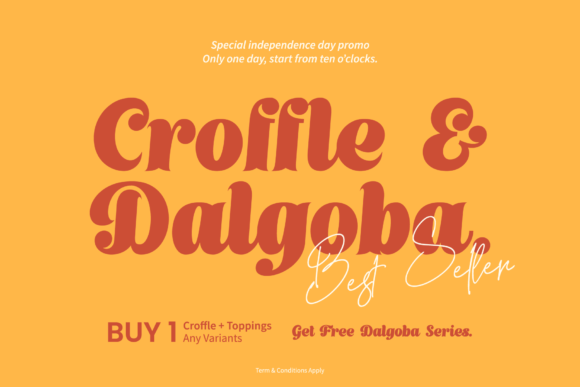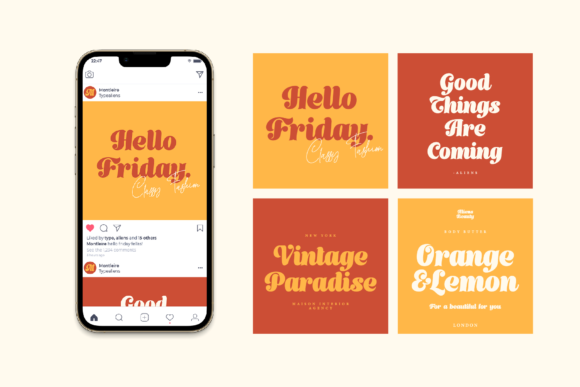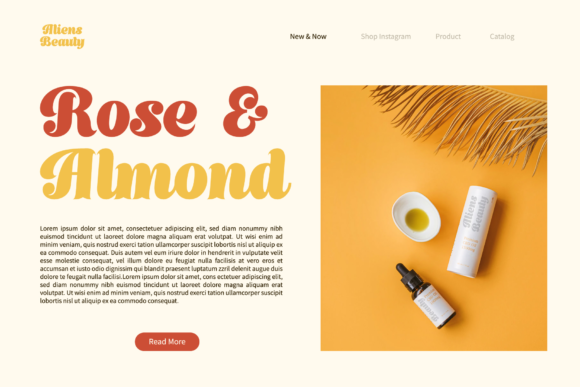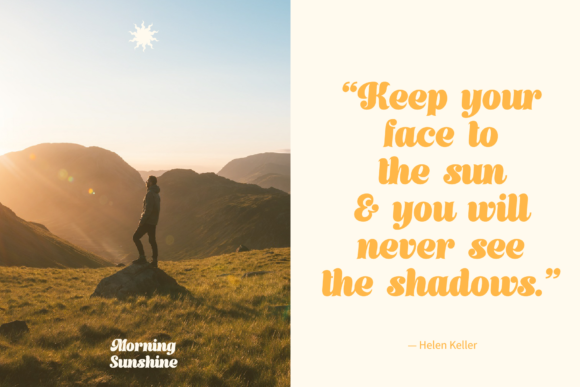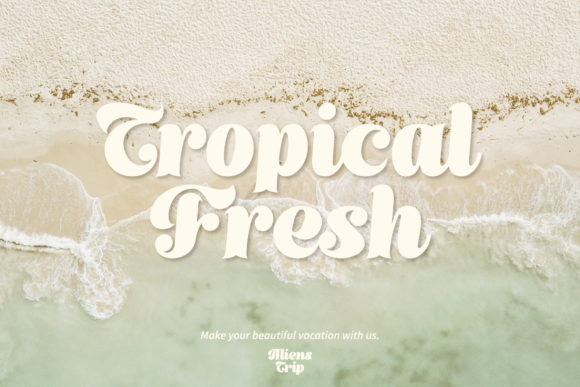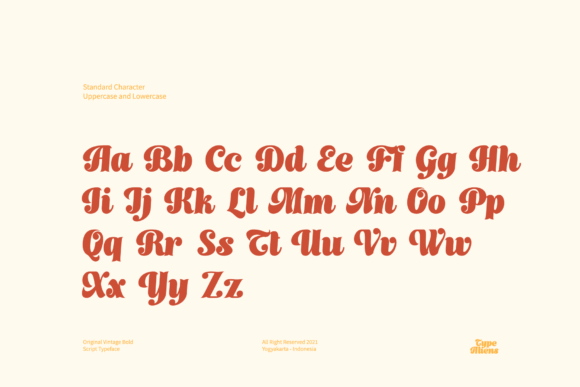
Introduction to Montleire Font
Have you ever found yourself scrolling through your old photos, reminiscing about the past, and suddenly you’re hit with a wave of inspiration? That’s exactly what happened to me the other day when I stumbled upon an old family album from the 80s. The bold, handwritten font used in the captions immediately caught my attention and sparked an idea for a design project. I knew I had to find a font that could evoke the same feeling of nostalgia and energy, and that’s when I discovered the Montleire Font.
As a designer, I can attest to the value of having a versatile and high-quality font in your design resource arsenal. The Montleire Font is a game-changer for creative projects that require a bold and dynamic touch. With its transparent background and free download option, it’s the perfect addition to any design library.
Whether you’re working on a logo, poster, or social media campaign, the Montleire Font is sure to bring a touch of retro charm to your designs. Its strong and confident feel is perfect for making a statement and grabbing attention. In this article, we’ll dive deeper into the world of the Montleire Font and explore its features and benefits for designers like you.
Key Features of Montleire Font
- High-quality design resource ideal for creative projects, offering a professional touch.
- Features a unique, elegant design that sets it apart from other fonts in its class.
- Includes a comprehensive character set, making it suitable for a wide range of creative projects, from logos to typography.
Honest Review: Montleire Font
I recently stumbled upon the Montleire Font, and I’m excited to share my honest review with you. As a designer, I’m always on the lookout for high-quality design resources to enhance my creative projects.
One of the things that stood out to me about the Montleire Font is its elegant and sophisticated design. The font is perfect for creating a luxurious and professional look in any design project. I particularly love using it for branding and typography projects where I want to convey a sense of elegance and sophistication. ✨
Here are some of the features that I love about the Montleire Font:
- Transparent background, making it easy to work with
- Perfect for branding, typography, and other design projects
Overall, I’m really impressed with the Montleire Font and would definitely recommend it to designers looking for a high-quality, elegant font for their creative projects.
The Montleire Font is suitable for a variety of design projects, including branding, marketing materials, and digital art. Its unique style and high-quality design make it an excellent choice for any creative endeavor.